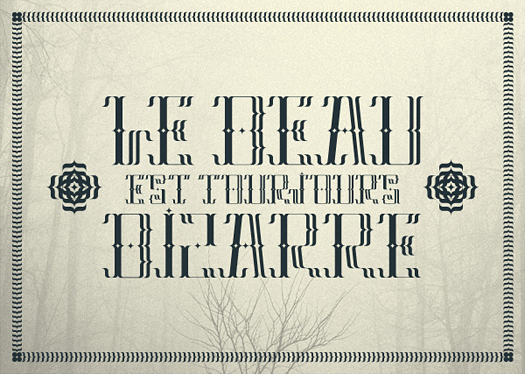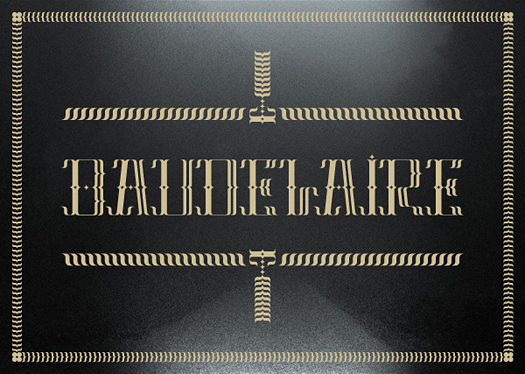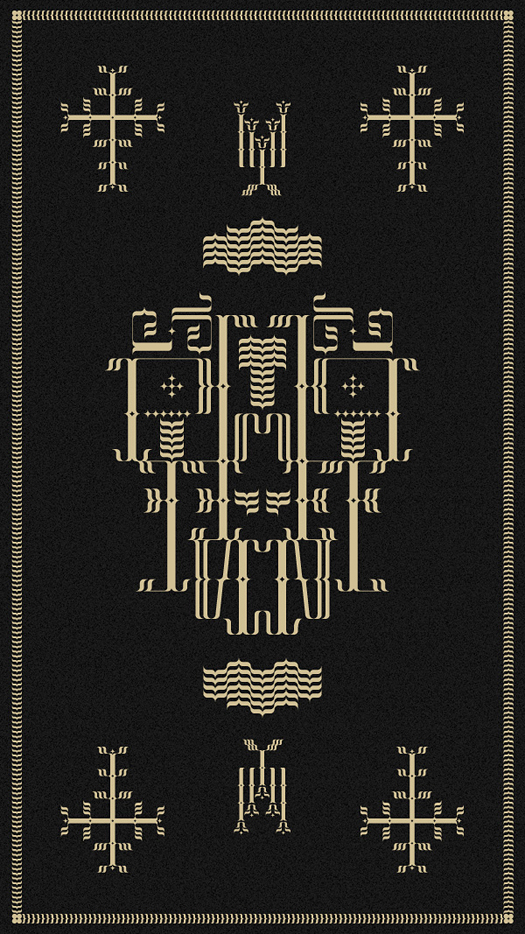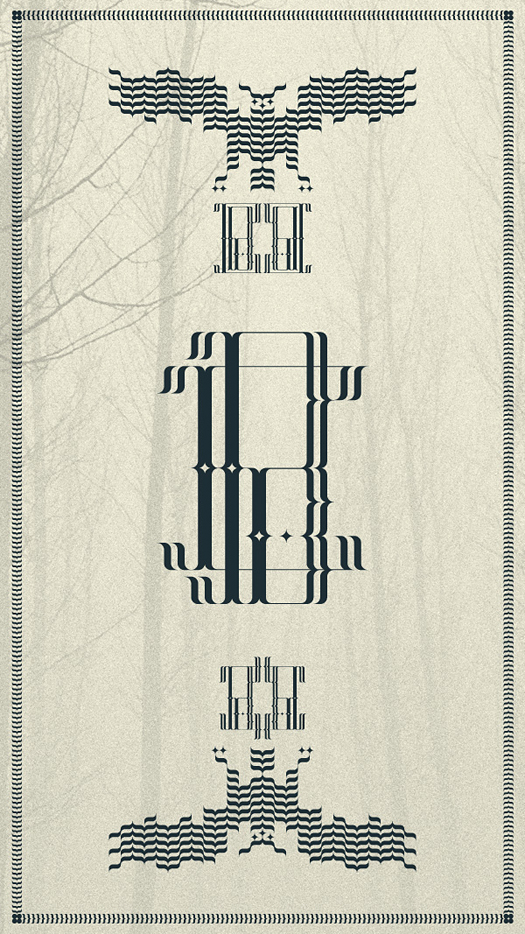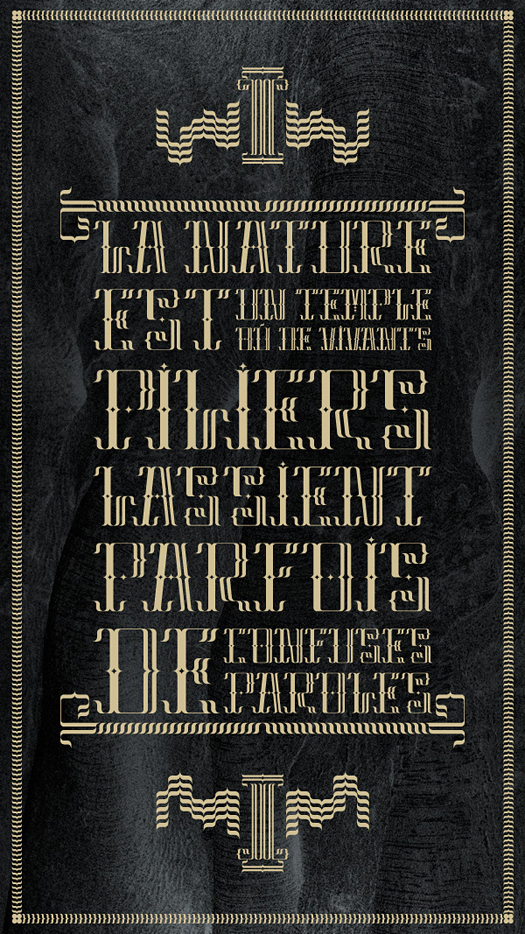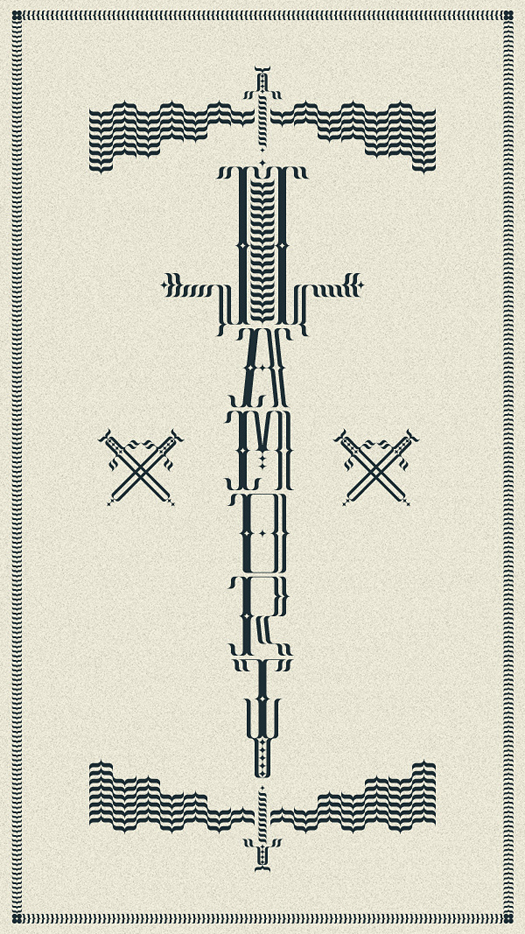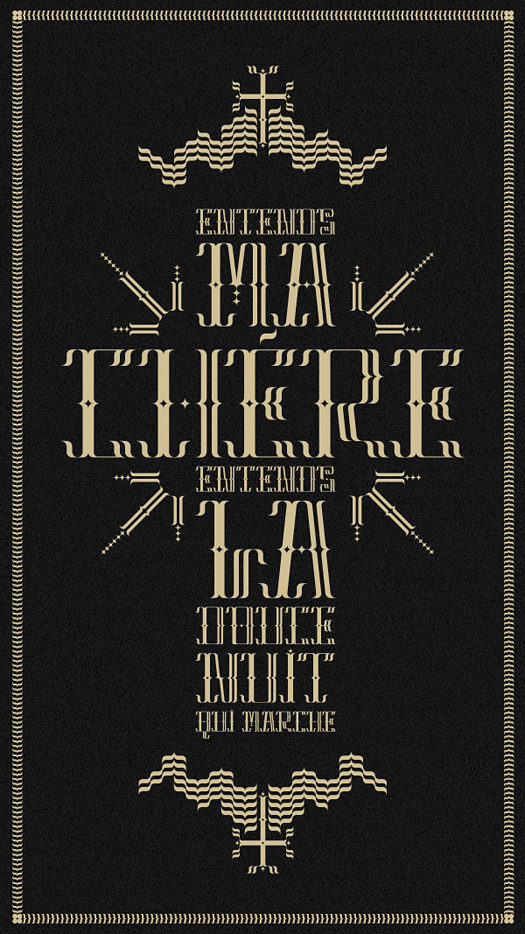
Baudelaire
"Dandy Typeface" is a personal project that has been rolling my mind since some time ago.This projetct will be a collection composed by some different typefaces inspired on characters related to the Dandy's universe and its way to understand life and art.
This is the first of the series which I dedicate to Charles Pierre Baudelaire, one of the most amazing and visionary poets from the XIX century.
Designer: Vicente Garcia Morillo
Publisher: Handmadefont